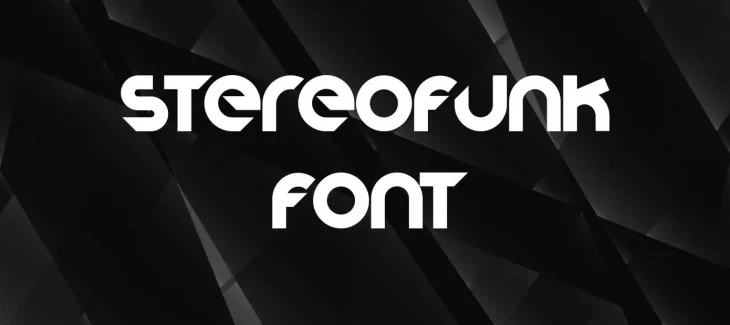
The Stereofunk Font is a typeface that was created in the early 1990s by graphic designer Ray Larabie. The font is characterized by its unique, futuristic style and its use of Futura Bold as its base.
Larabie has said that he was inspired to create the font after seeing the work of German artist Hans Rudi Giger. He has also said that the font was meant to be used for “headlines and short bursts of text.”
Who Used Stereofunk Font?
The Stereofunk typeface is most commonly used for headlines and short blocks of text. It is also sometimes used for logos and other graphic design elements. This typeface has a unique, modern look that can add a touch of sophistication to any project.
This font is also very useful in advertising and marketing contexts where a futuristic or high-tech look is desired. It can also be used in video games and other digital media projects.
Stereofunk Font Family Appearance
Is Stereofunk a proportional Font?
This Font is not a proportional font. This means that each character takes up the same amount of space, regardless of its width. This can make it difficult to use in some contexts, such as when creating paragraphs of text.
Is Stereofunk a modern Font?
This Font is considered to be a modern font. This is due to its unique, futuristic style and its use of Futura Bold as its base. The Stereofunk typeface is perfect for creating modern and sophisticated designs.
Is Stereofunk Font easy to read?
This Font is easy to read when used in small doses. However, because it is not a proportional font, it can be difficult to read when used for large blocks of text.